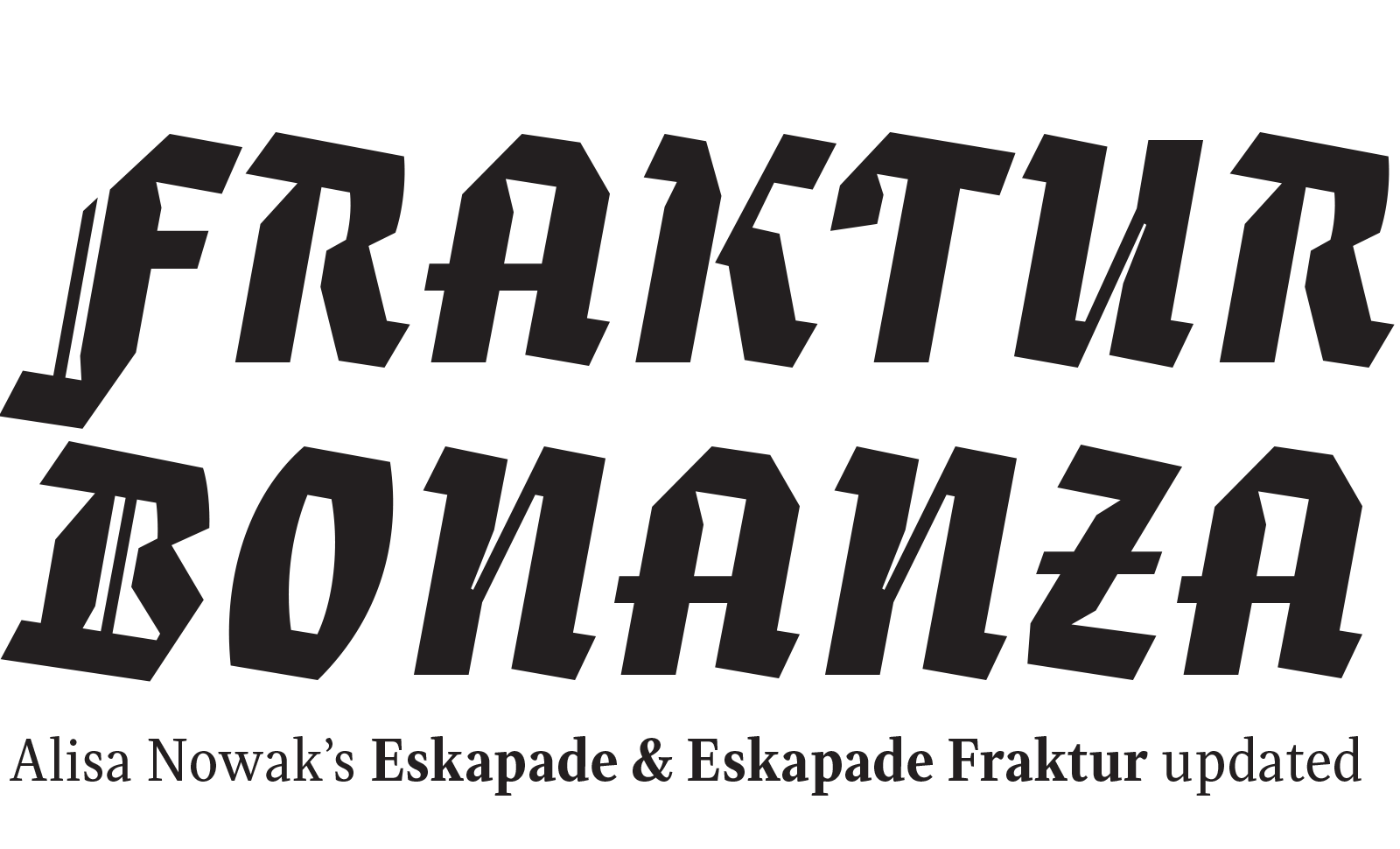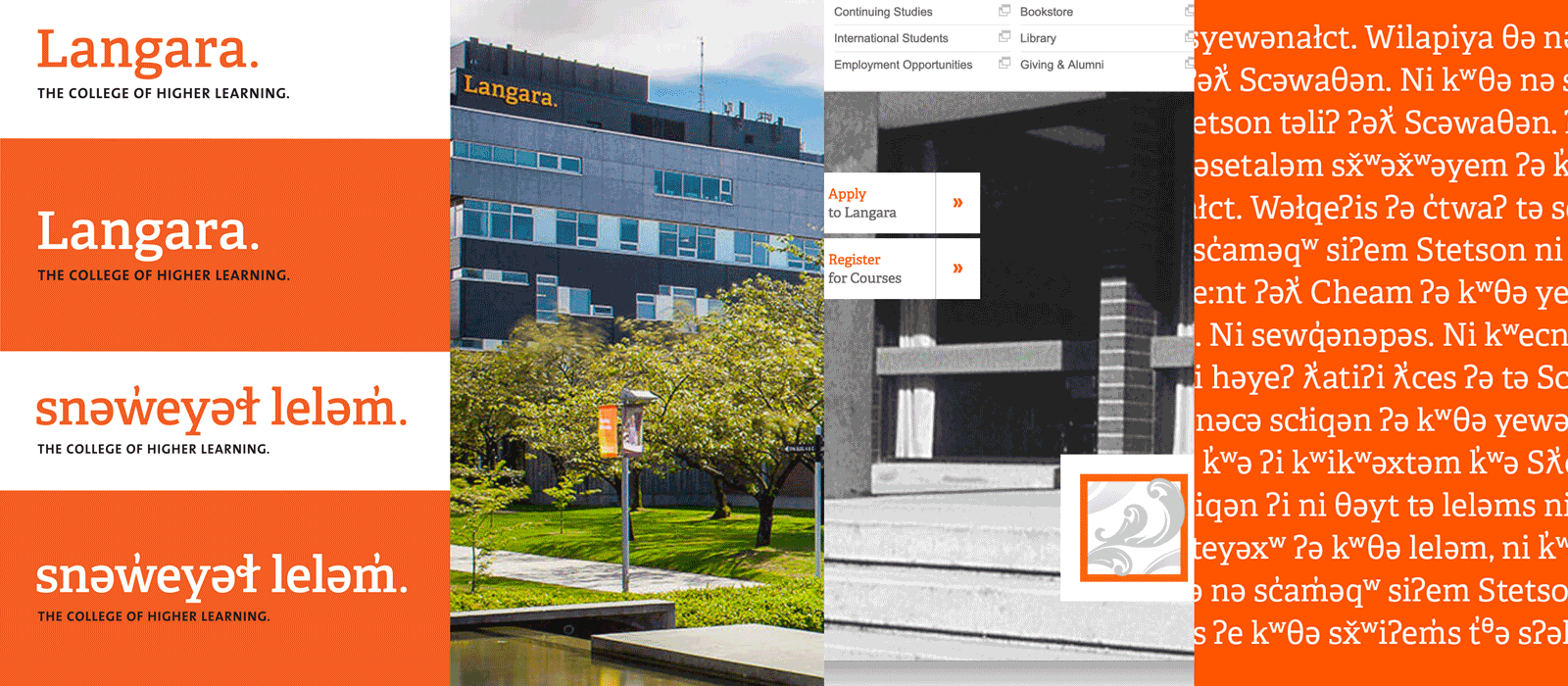
The second version of Eskapade is dropping now! Eskapade created new common ground between an experimental Fraktur and a nimble oldstyle serif. Before, Eskapade only had six weights. Now with this huge update, Eskapade gains 16 total weights, refined shapes, improved spacing, more glyphs per weight, small caps, and a bevy of ornaments. It’s an update well worthy of its ‘2.0’ moniker.
Corporate typography: Adelle
Speaking of education, Langara College continues to hold a special place in our heart. The institution has a deep commitment to the indigenous people who still live there and the school has always worked hard to partner with them. They recently commissioned us to expand the Adelle family with glyphs from the Halkomelem alphabet, which we gladly did. The project expands the opportunity to share culture and language in the most targeted way — within the cultural environment of higher education itself.